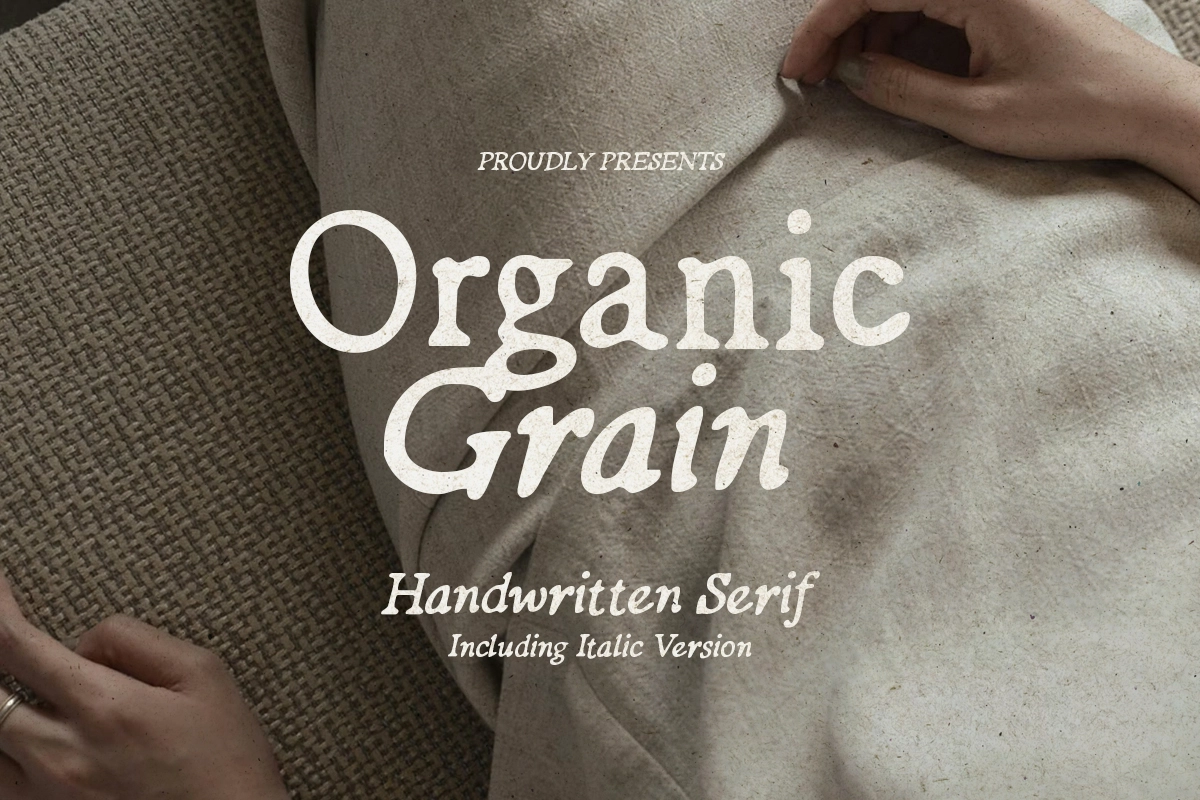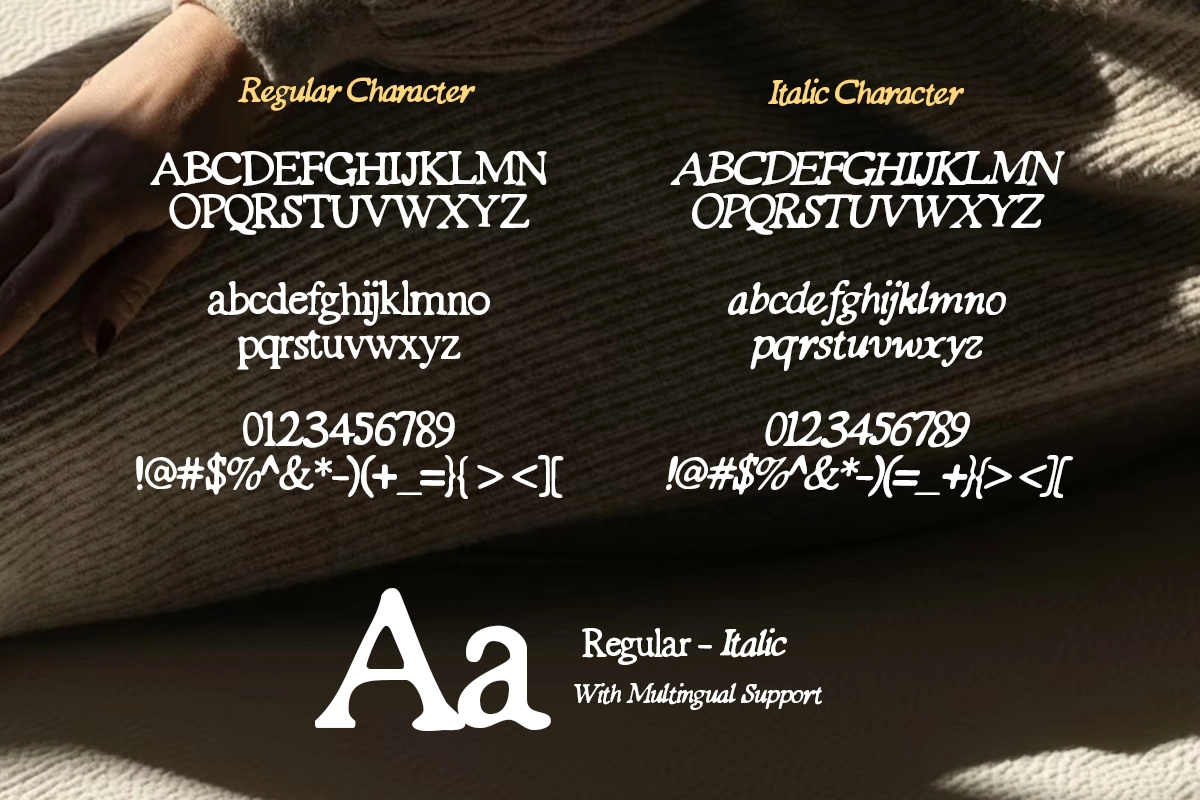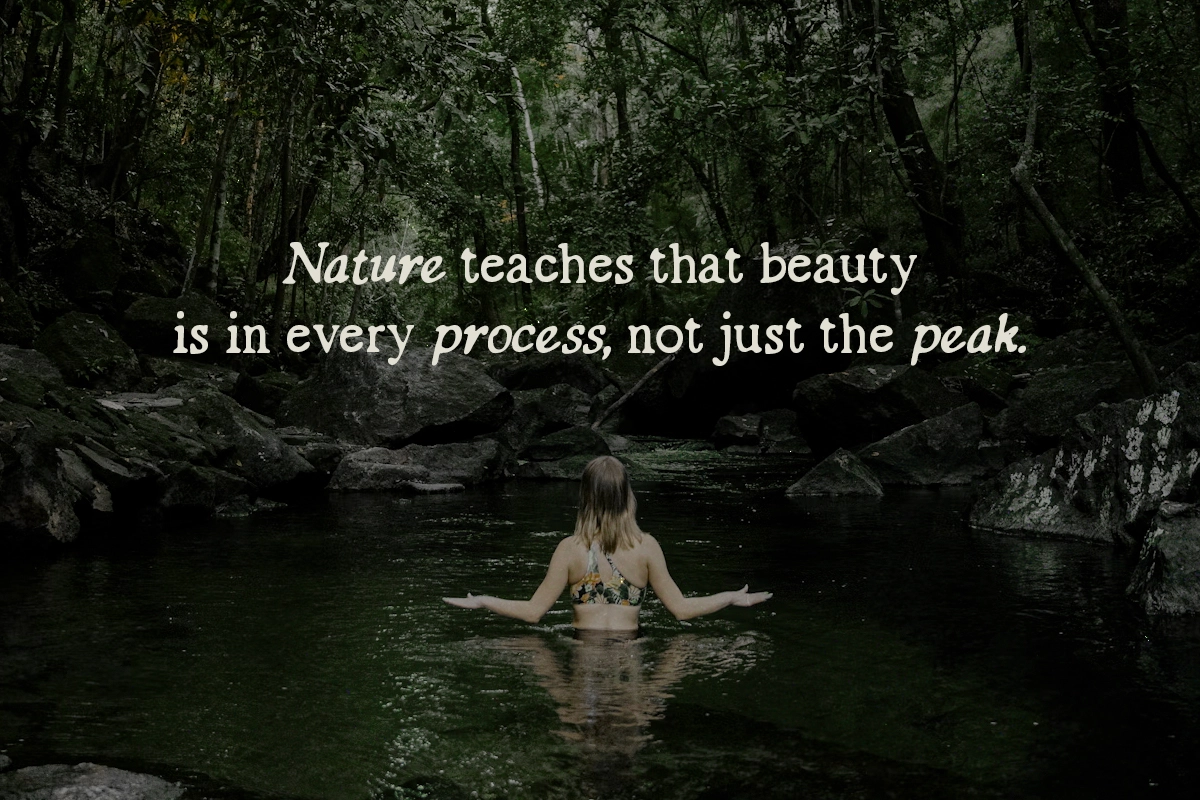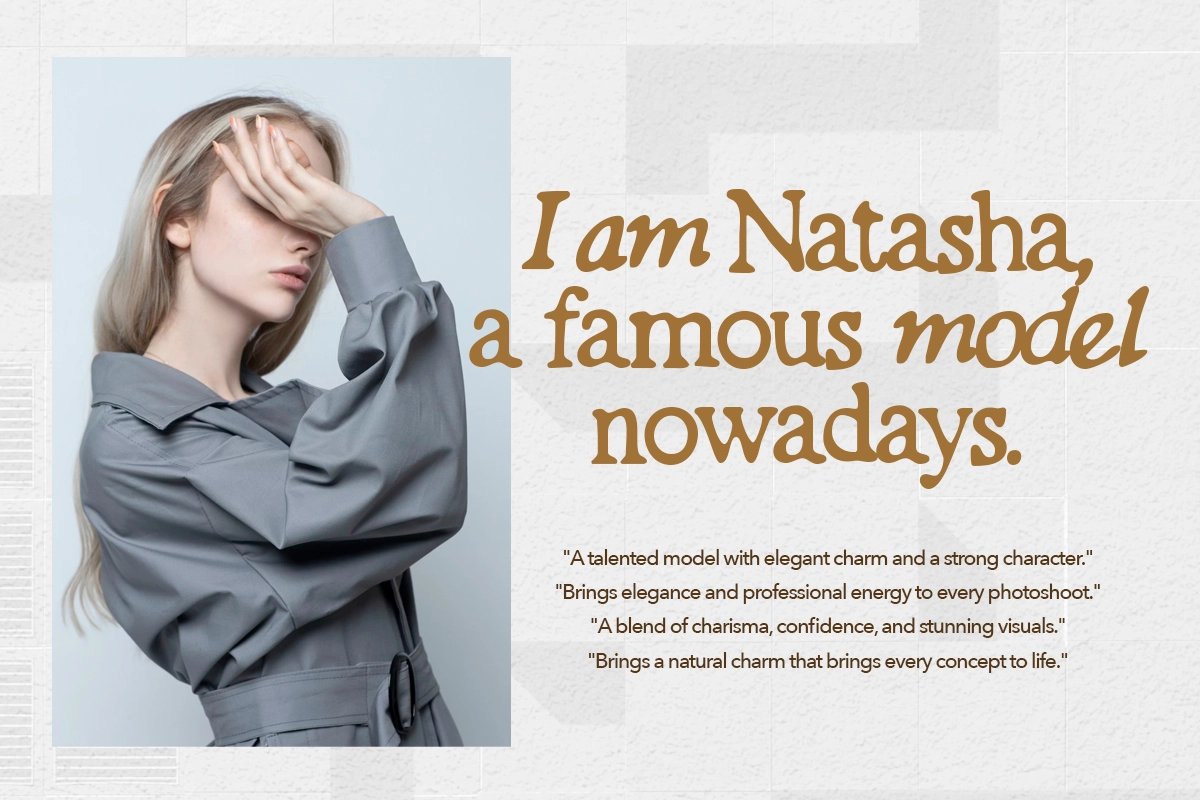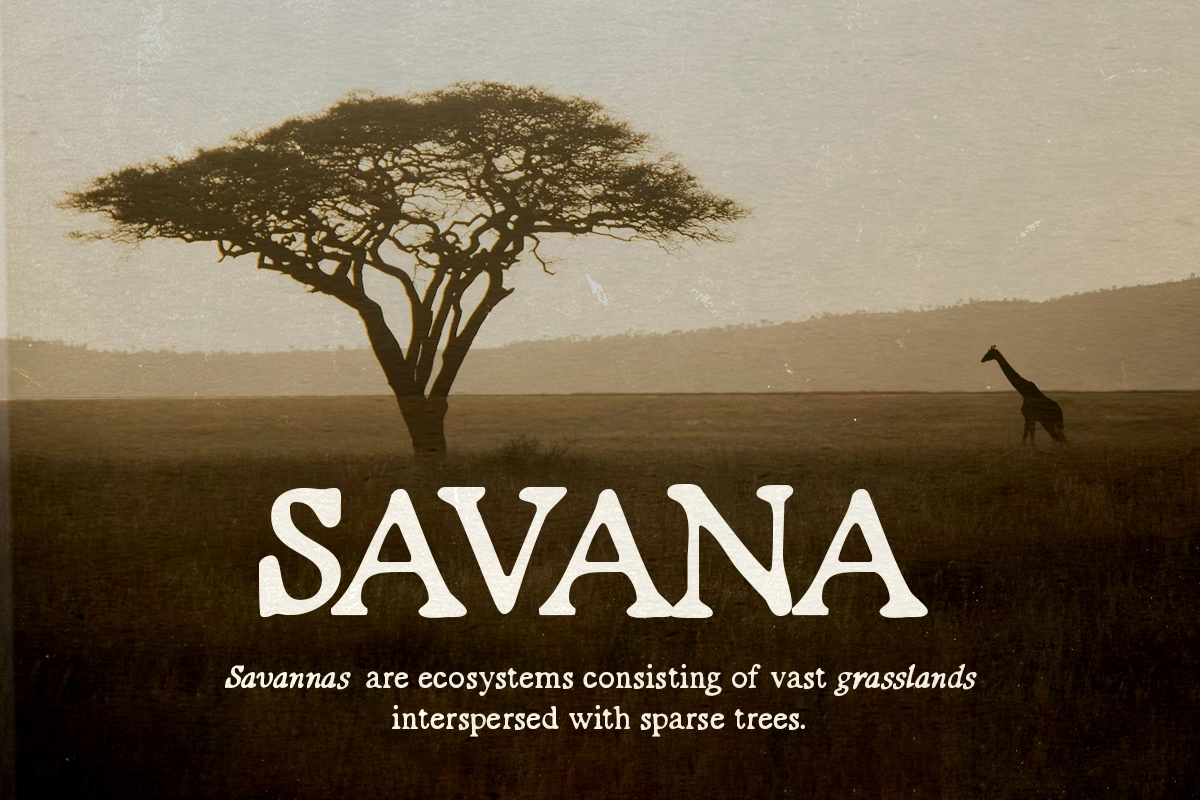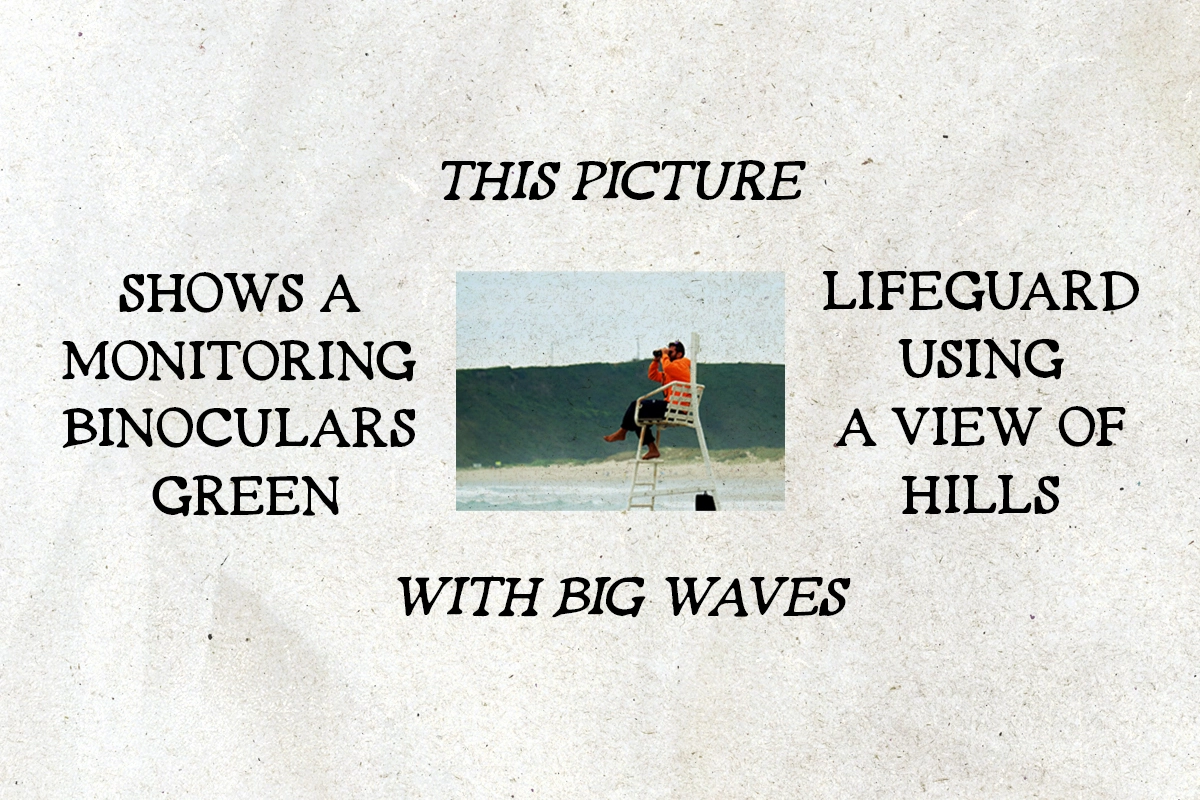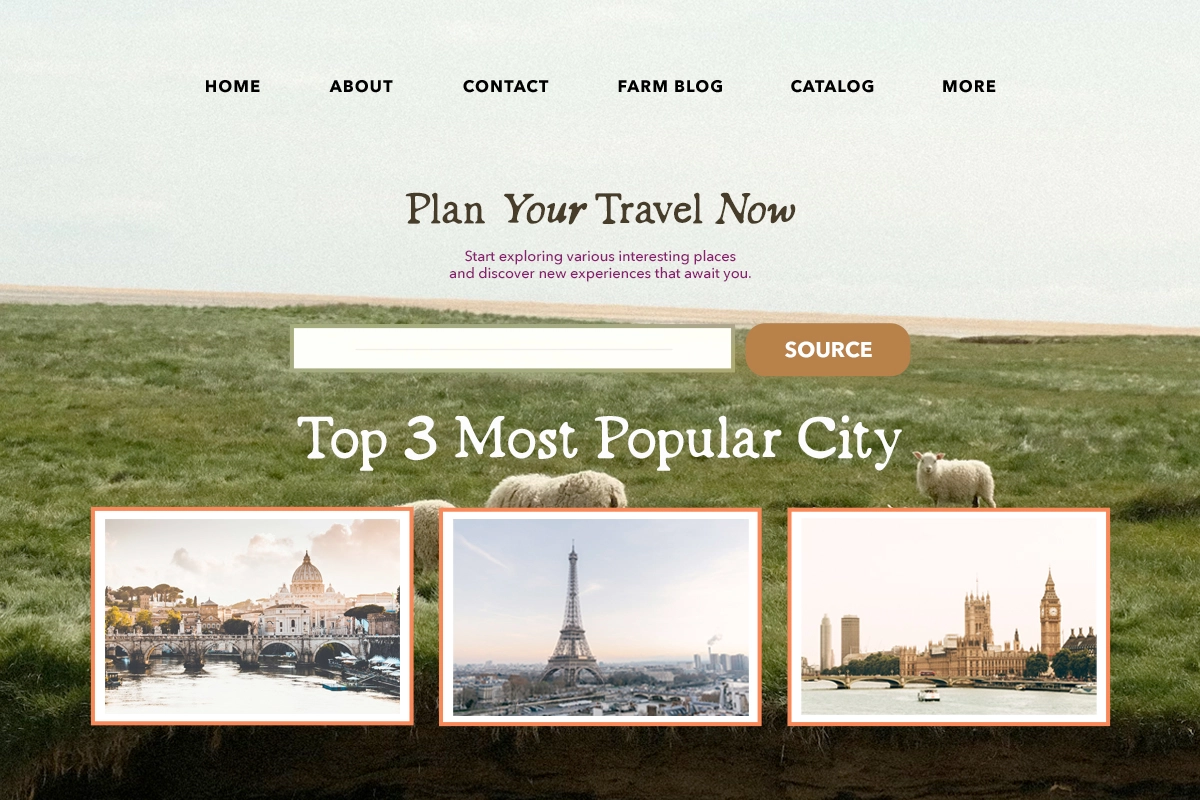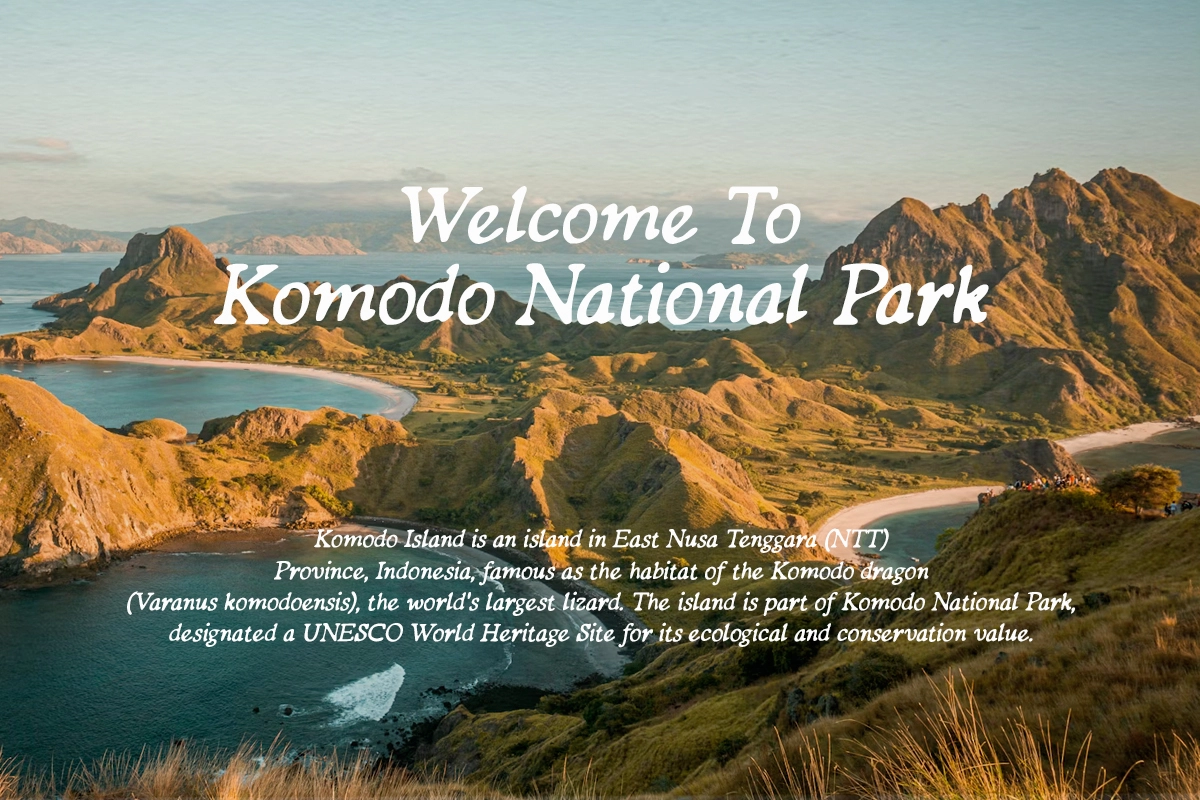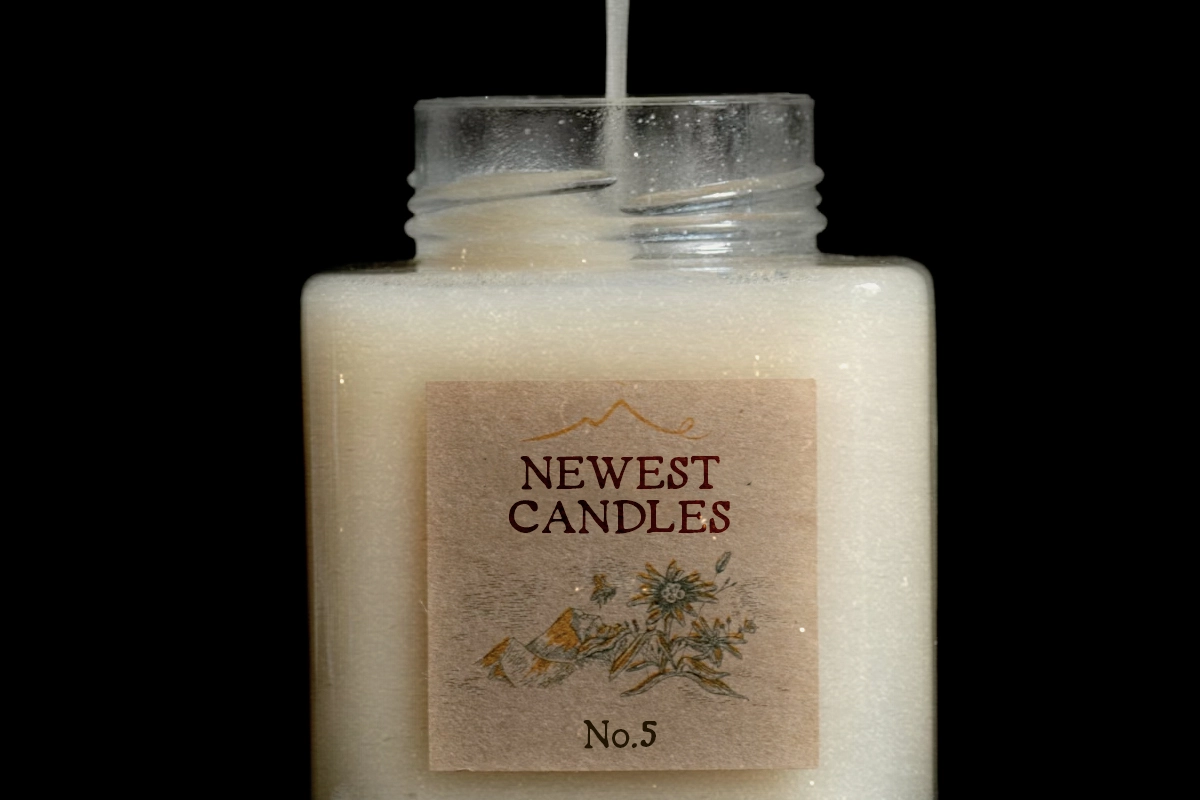
Organic Grain - Handwritten Serif Font
Organic Grain - Handwritten Serif Font is a hand-lettered serif typeface family crafted to bring a warm, natural feel into your designs. Its organic shapes and slightly textured appearance create a soft, human touch that works beautifully for projects requiring authenticity and elegance.
With both regular and italic styles included, Organic Grain offers flexibility for building expressive typography compositions. Whether you're designing logos, wedding invitations, quotes, or branding materials, this font adds a handcrafted charm while maintaining readability and style across different applications.
- Regular & Italic styles
- Uppercase & lowercase letters, numbers & punctuation
- Handwritten serif style